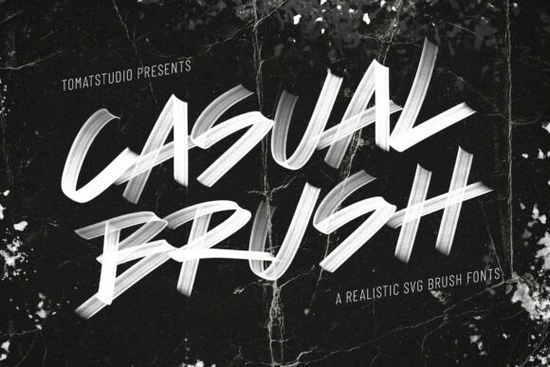
If you're looking for a brush font that feels authentically hand-painted without losing legibility or versatility, Casualbrush Font is worth a closer look. Designed with expressive strokes and dynamic movement, it captures the spontaneity of real brushwork while offering two practical styles one rich with texture (SVG) and one clean and solid (Regular). Whether you’re designing t-shirts, social media graphics, packaging, or greeting cards, this font brings energy and personality without overwhelming your layout.
What makes Casualbrush Font stand out from other brush scripts?
Many brush fonts lean too heavily into stylization, sacrificing readability or flexibility. Casualbrush avoids that trap. Its letterforms are slanted and fluid, mimicking the natural motion of a hand-held brush, but they maintain consistent spacing and clear shapes. This balance makes it usable even in smaller sizes or layered designs.
The real differentiator is the dual-style approach:
- Casual Brush SVG: Uses SVG OpenType technology to embed actual brush textures think bristle marks, ink bleed, and subtle variations so each letter looks truly painted.
- Casual Brush Regular: A vector-based version with smooth outlines, ideal for print-on-demand platforms, embroidery digitizing, or when file compatibility matters more than texture.
This flexibility means you’re not locked into one use case. Need gritty realism for a coffee shop poster? Go SVG. Creating a minimalist quote sticker for Etsy? The Regular version keeps things crisp.
Who should use this font and where?
Casualbrush works especially well for creators who want warmth and human touch in their work:
- Print-on-demand sellers can use it for apparel, mugs, and tote bags where “handmade” aesthetics drive sales.
- Small business owners might apply it to logos, signage, or promotional flyers for cafes, boutiques, or wellness studios.
- Digital designers will appreciate how it adds character to Instagram stories, YouTube thumbnails, or email headers without looking overdesigned.
- Crafters using Cricut or Silhouette machines can rely on the Regular style for clean cuts in vinyl or paper projects.
It pairs beautifully with clean sans-serifs or minimalist serif fonts. If you like fonts such as Simple Preppy for contrast, or enjoy the playful vibe of Preppy Barbie, Casualbrush offers a more organic alternative while keeping that friendly, approachable tone.
How does it compare to similar script fonts?
Unlike overly delicate scripts (like Barbie Valentine’s Outline) or ultra-bubbly options (such as Blueberry Font), Casualbrush leans into boldness and rhythm. It’s not trying to be cute it’s aiming for confident, casual expression.
For those who love duo-style fonts like Sundae Script Duo, Casualbrush delivers a similar concept: two versions of the same design language tailored to different needs. But where Sundae leans whimsical, Casualbrush feels grounded like something you’d see on a street mural or artisan product label.
Tips for getting the most out of Casualbrush Font
To make your designs feel intentional not messy keep these in mind:
- Avoid all-caps: The font’s slant and stroke variation shine in mixed-case or lowercase settings. All caps can flatten its dynamic energy.
- Use generous spacing: Slightly increase letter-spacing (tracking) if using it for headlines it lets each brushstroke breathe.
- Limit competing textures: If using the SVG version, pair it with solid-color backgrounds or simple patterns. Too much visual noise cancels out the brush detail.
- Test print output: While the SVG version looks stunning on screen, always preview how it renders in your final medium some printers or POD services may rasterize it unexpectedly.
And remember: the Regular version isn’t “less than” it’s purpose-built for clarity and compatibility. Don’t assume you need the SVG just because it’s flashier.